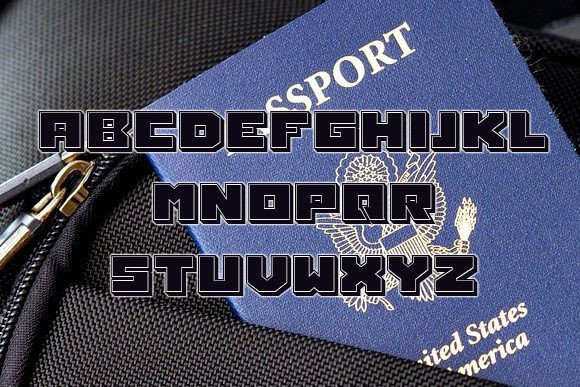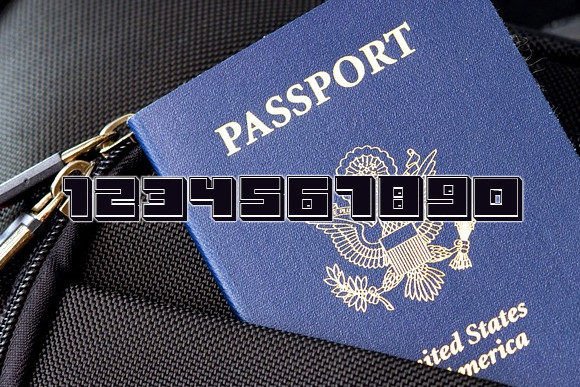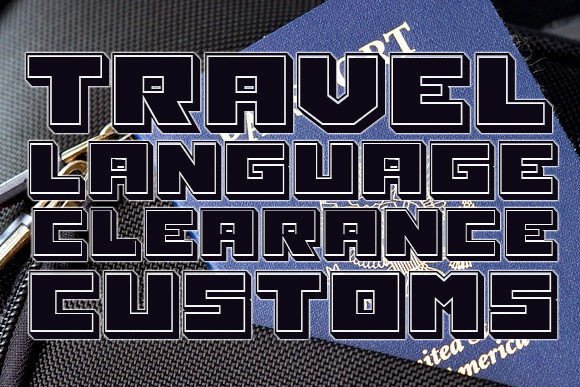
Unleash Your Creativity with Ausweis Font: A Blocky and Stylish Display Font
Are you a designer or crafter looking for a font that can elevate your visual projects to the next level? Look no further than Ausweis Font, a blocky and stylish display font that is incredibly versatile and suitable for a wide spectrum of applications. In this article, we’ll dive into the features and benefits of Ausweis Font, and explore how it can be used to add a touch of modern style to your designs.
What is Ausweis Font?
Ausweis Font is a display font that is characterized by its blocky and stylish design. The font features a unique and eye-catching aesthetic that is sure to grab attention. Its bold and geometric shape makes it perfect for headlines, titles, and other display text. Whether you’re working on a branding project, a website, or a craft project, Ausweis Font is a great choice.
Key Features of Ausweis Font
So, what makes Ausweis Font so special? Here are some of its key features:
- Blocky and Stylish Design: Ausweis Font features a unique blocky and stylish design that is sure to stand out.
- Incredibly Versatile: This font is suitable for a wide spectrum of applications, from branding and advertising to web design and crafting.
- Bold and Geometric Shape: The font’s bold and geometric shape makes it perfect for headlines, titles, and other display text.
- Easily Readable: Despite its bold design, Ausweis Font is easily readable, even at smaller sizes.
Applications of Ausweis Font
So, what can you use Ausweis Font for? The possibilities are endless! Here are some ideas to get you started:
- Branding and Advertising: Use Ausweis Font to create eye-catching logos, billboards, and magazine ads.
- Web Design: Add a touch of modern style to your website with Ausweis Font, perfect for headlines and titles.
- Crafting and DIY Projects: Use Ausweis Font to add a personal touch to your craft projects, such as handmade cards, scrapbooking, and more.
- Signage and Displays: Ausweis Font is perfect for creating eye-catching signs and displays for businesses, events, and more.
Tips for Using Ausweis Font
Here are some tips for getting the most out of Ausweis Font:
- Use it for Headlines and Titles: Ausweis Font is perfect for headlines and titles, where you want to grab attention and make a statement.
- Experiment with Colors: Try out different colors and color combinations to add depth and interest to your designs.
- Mix and Match with Other Fonts: Ausweis Font pairs well with other fonts, so don’t be afraid to experiment with different combinations.
In conclusion, Ausweis Font is a blocky and stylish display font that is incredibly versatile and suitable for a wide spectrum of applications. Its unique design and easily readable style make it perfect for designers and crafters looking to add a touch of modern style to their projects. Whether you’re working on a branding project, a website, or a craft project, Ausweis Font is a great choice. So why not give it a try and see what amazing designs you can create?